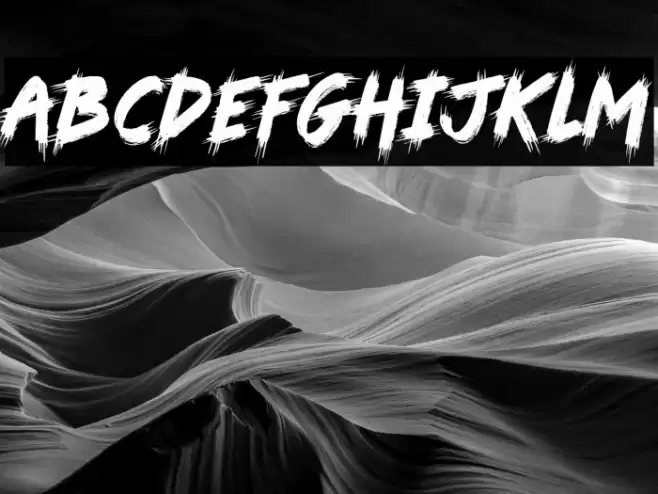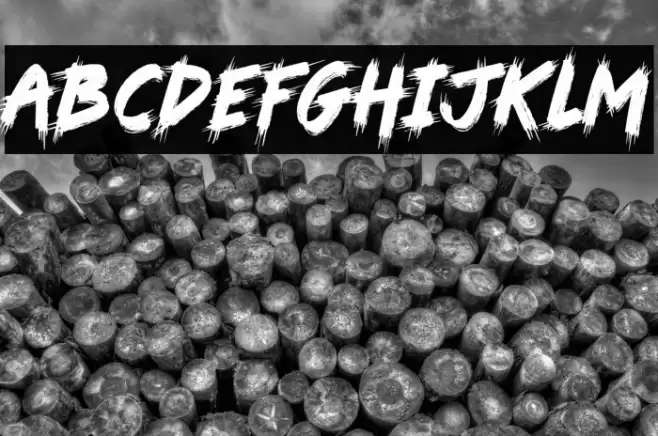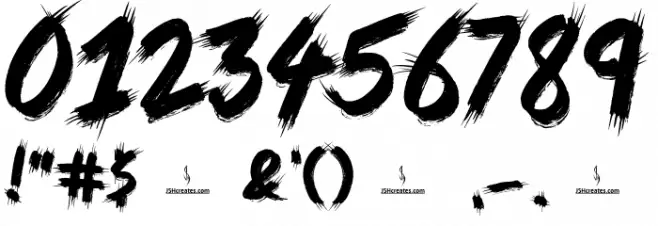
Grave Snatchers Font
Grave Snatchers Description
This font features a bold and aggressive style, characterized by jagged edges and a rough, hand-drawn appearance. The letters are dynamic and energetic, with a sense of movement that suggests urgency or intensity. The strokes are uneven, giving it a raw and edgy look, reminiscent of horror or thriller themes. The overall design is striking and attention-grabbing, making it ideal for projects that require a dramatic and impactful visual presence.
A bold, jagged font with a raw, hand-drawn appearance from Uncategorized fonts.
- Font: Grave Snatchers
- Proposed Projects: Ideal for horror movie posters, Halloween event flyers, edgy album covers, or any project requiring a dramatic and intense aesthetic.